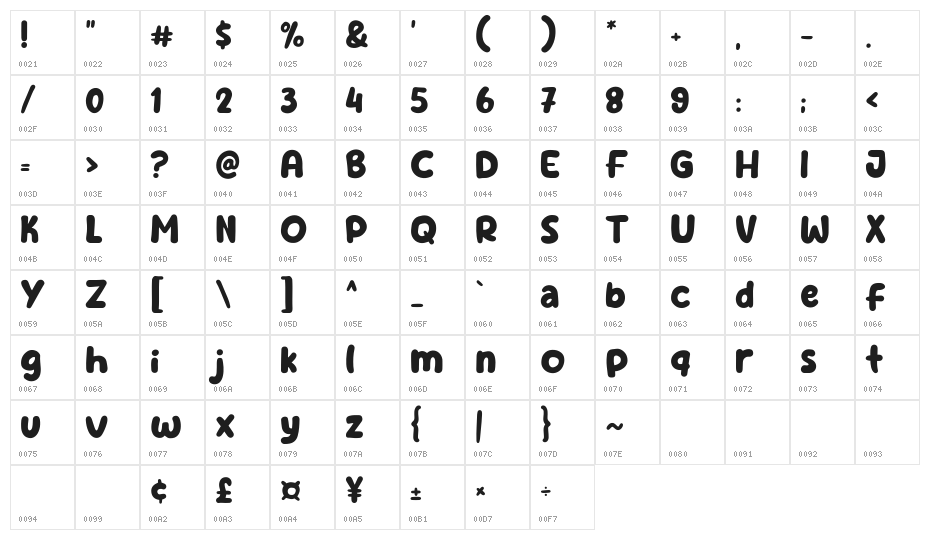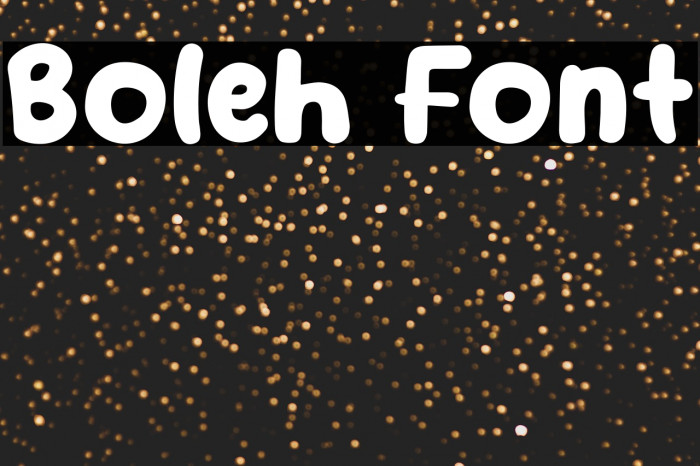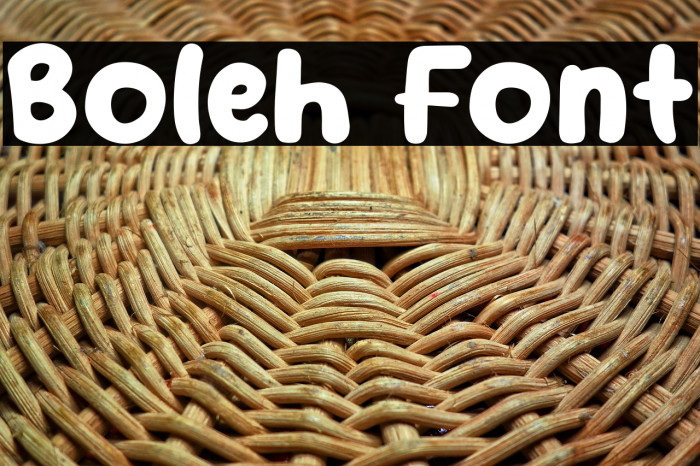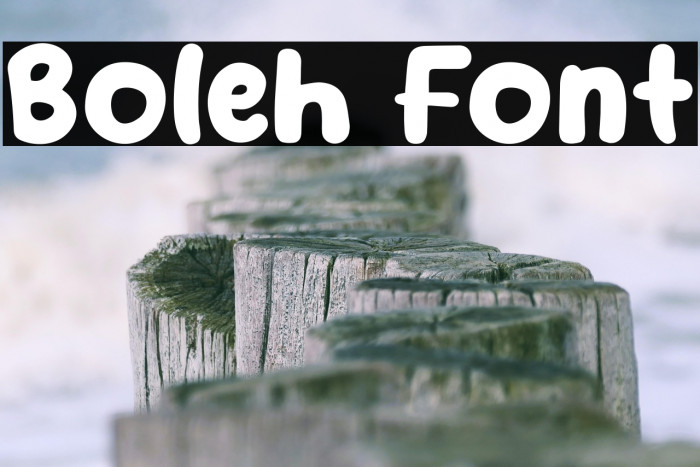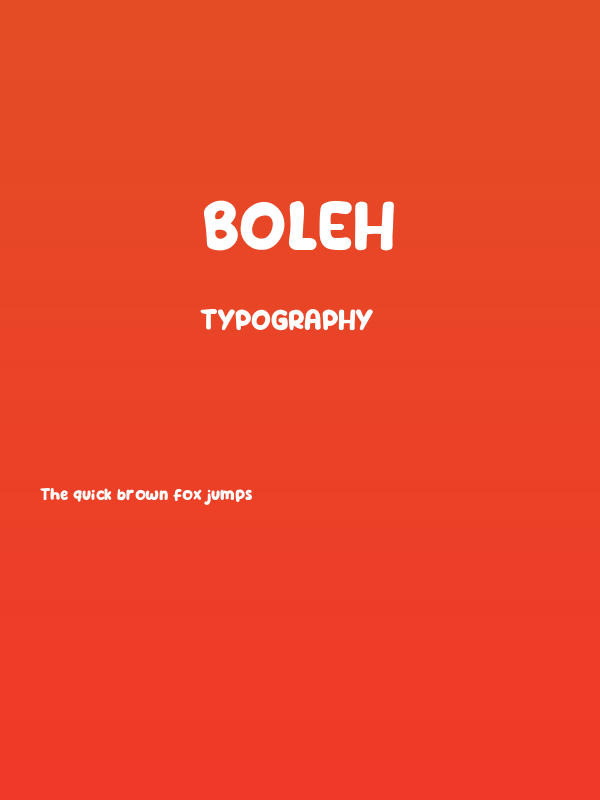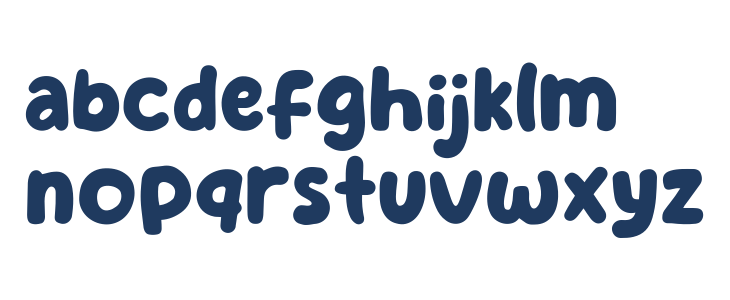
Boleh Font
Boleh Description
This playful and bold font features rounded edges and a bubbly appearance, giving it a friendly and approachable vibe. The characters are thick and uniform, with a consistent stroke width that adds to its boldness. The font is highly legible, making it suitable for various design projects that require a fun and casual look. Its rounded forms and lack of sharp edges contribute to a sense of warmth and friendliness, making it ideal for children's books, playful branding, or any project that aims to convey a sense of joy and whimsy. The font includes a full set of uppercase and lowercase letters, numbers, and a variety of special characters, ensuring versatility in its application.
| Overall Style | Playful |
| Proposed Projects | Children's books, playful branding, casual invitations, posters, and social media graphics. |